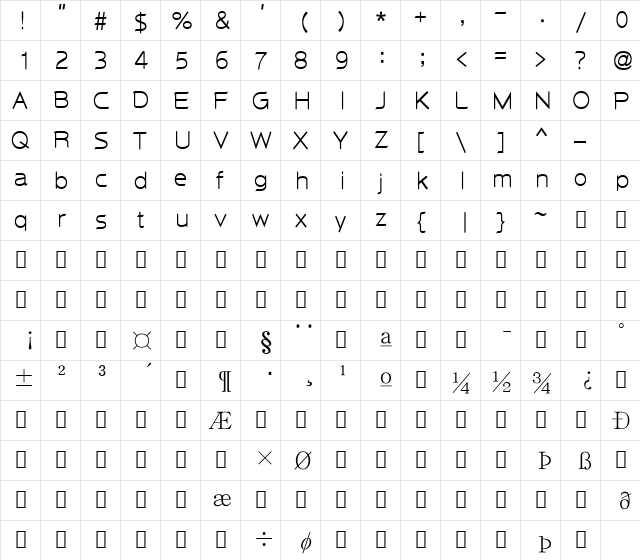
HYBudle-Medium Regular
Design Context for HYBudle-Medium Typeface
HYBudle-Medium is a composed and adaptable typeface that performs quietly and consistently across a wide range of design contexts.